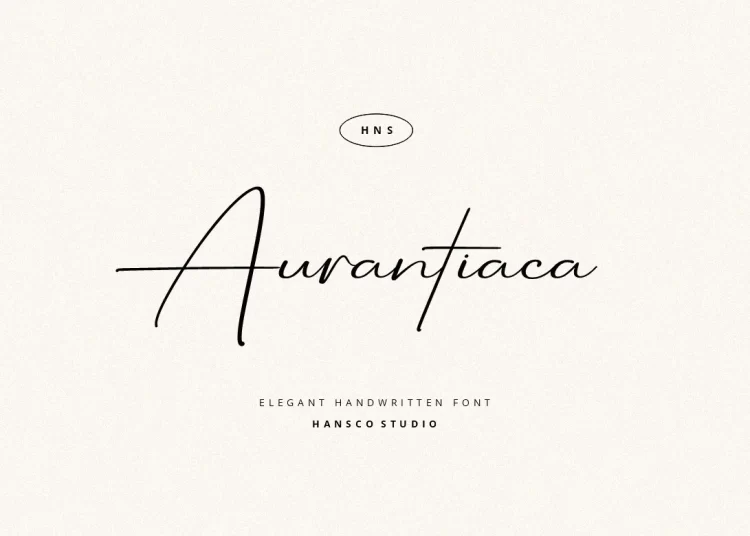
Aurantiaca Font
Searching for the perfect blend of contemporary elegance and feminine charm for your next project? Look no further than Aurantiaca, a delightful handwriting font designed to infuse your creations with a sense of relaxed sophistication. Whether you’re crafting quotes, designing menus, brainstorming taglines, promoting events with flyers and posters, or sending out stylish invitations, Aurantiaca is your go-to choice for adding that extra touch of flair.
What sets Aurantiaca apart is its versatility and comprehensive character set. With both uppercase and lowercase letters, numbers, punctuation marks, and ligature characters at your disposal, you have everything you need to bring your vision to life. Plus, with extensive language support, including support for non-English characters, Aurantiaca ensures that your message resonates with audiences around the globe.